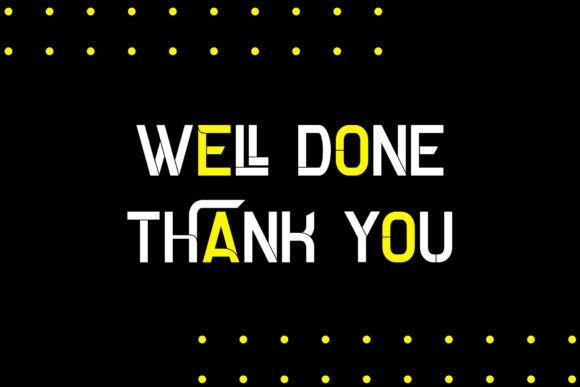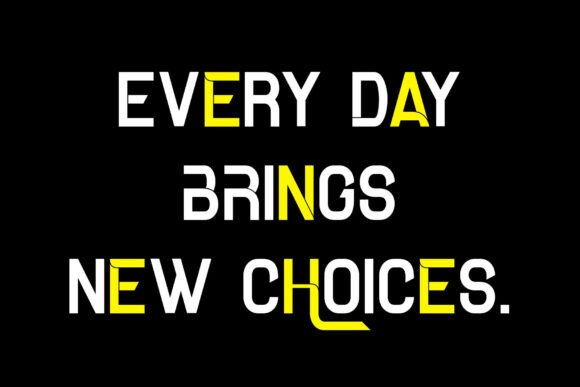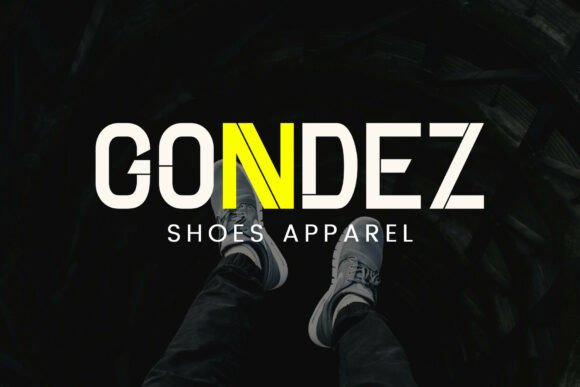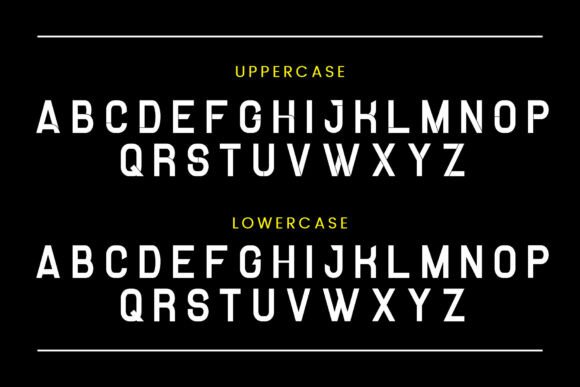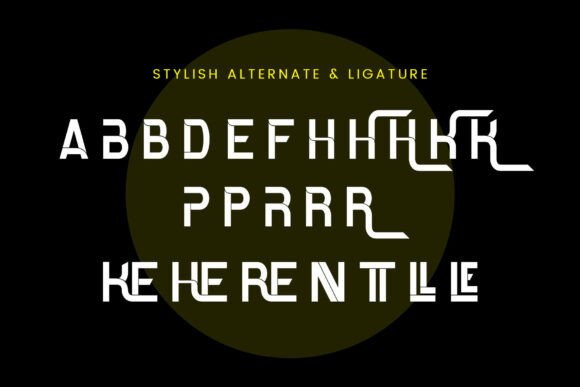
Unlock the Power of Modern Design with Arenn Font
Have you ever stared at a blank page, trying to come up with the perfect font to convey your brand’s message? You’re not alone. Designers are constantly seeking the perfect combination of style and functionality to make their creations stand out. That’s where Arenn Font comes in – a game-changing sans serif font designed to deliver a bold and progressive visual identity.
Arenn Font is the perfect solution for designers looking to create a striking and modern visual identity. With its architectural strength and innovative letterforms, this font exudes a sense of seamless movement and contemporary precision. Its clean, geometric lines and balanced proportions make it an exceptional choice for tech-focused branding, industrial-style logos, sports marketing, and futuristic editorial headlines.
Arenn Font Key Features
• Font Family: Arenn Font is a sans-serif typeface, designed for digital use.
• Unique Character: Arenn Font features a unique, modern design with a subtle rounded edge, making it perfect for digital interfaces, signage, and branding.
• Font Weight: Arenn Font includes a range of font weights, from Light to Bold, providing flexibility for different design requirements.
Arenn Font Review
I recently had the chance to dive into the Arenn Font, and I must say it’s a unique and intriguing typeface. Here are my thoughts on what works well and what doesn’t.
• The Arenn Font’s bold and futuristic feel is perfect for creating a cutting-edge design aesthetic.
• The font’s geometric shapes and clean lines make it highly legible, even at smaller font sizes.
• The Arenn Font is highly customizable, with a wide range of styles and weights to choose from.
• The Arenn Font may be too bold for some designs, and can easily overwhelm the layout.
• The font’s futuristic feel may not be suitable for more traditional or classic design projects.
• The Arenn Font may not be as versatile as other fonts, and may not work well in certain contexts.
Overall, the Arenn Font is a great choice for designers looking to create bold, futuristic designs. While it may have some limitations, its unique aesthetic and high level of customization make it a valuable addition to any design toolkit. I would definitely consider using the Arenn Font for projects that require a cutting-edge look and feel.
Arenn Font is perfect for:
• Creating elegant headings and titles.
• Designing beautiful typography for graphics and designs.
• Adding a touch of sophistication to presentations and documents.
Remember to use Arenn Font in moderation to avoid overwhelming your design.